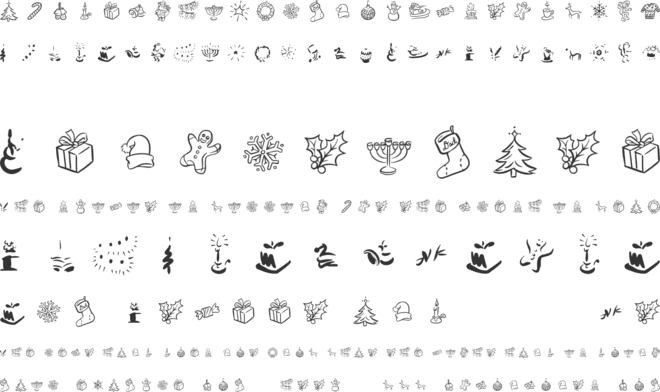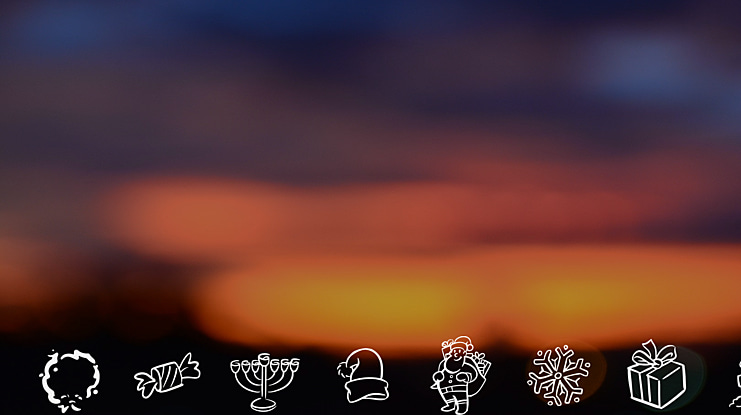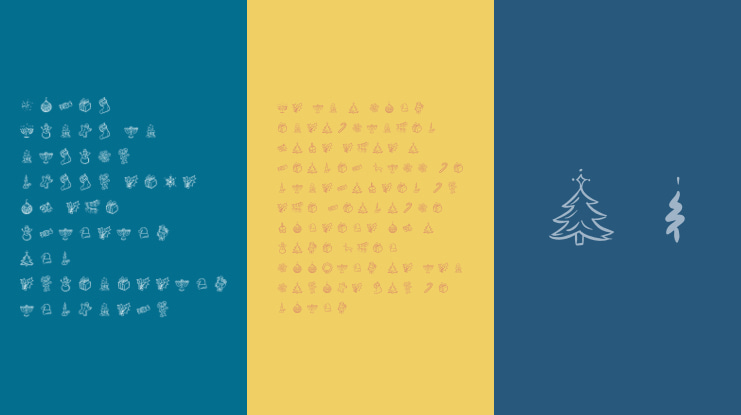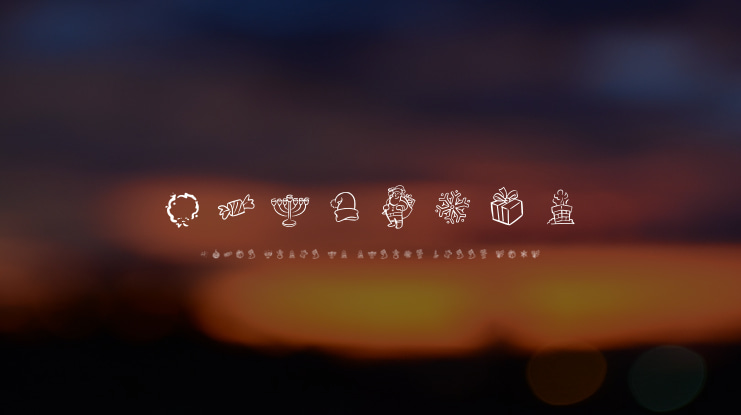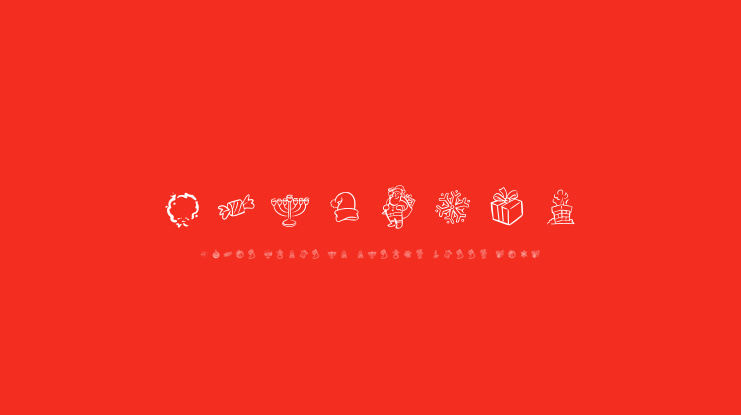
Kringles Font
26 fun doodles for your next December holiday creation. Type lowercase letters for the outlines. Copy and paste behind. Change to all caps for the fills. Change the fills to a december-y color like light blue for the finishing touch!